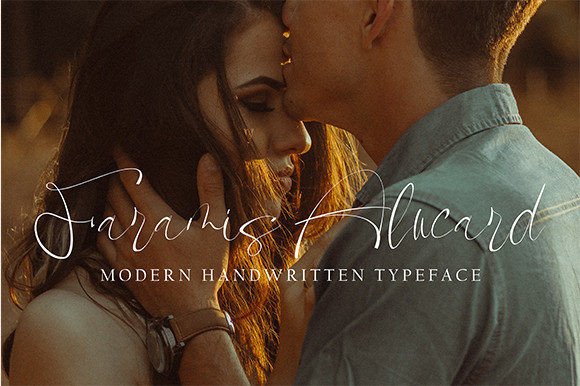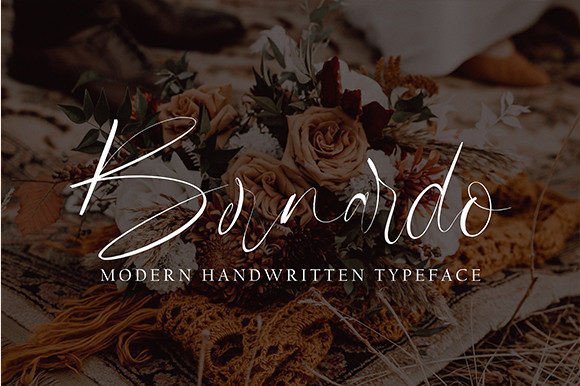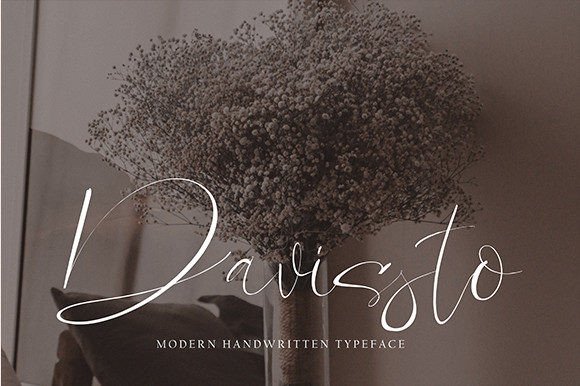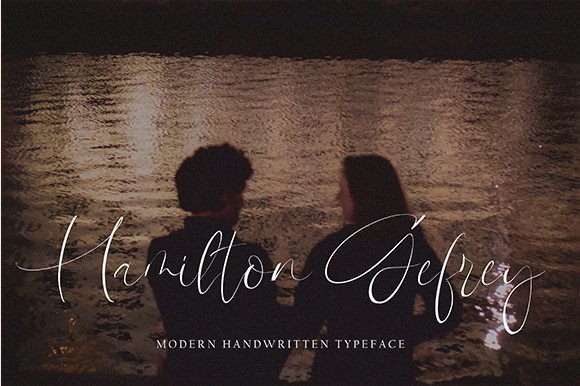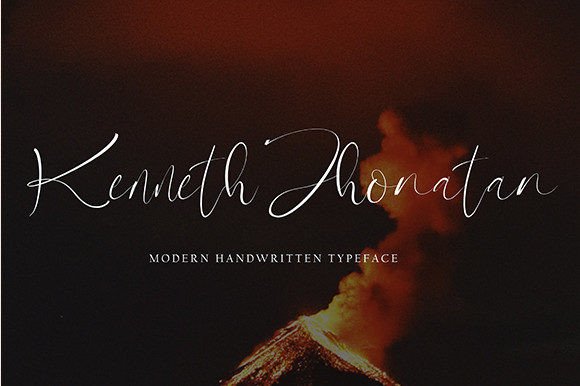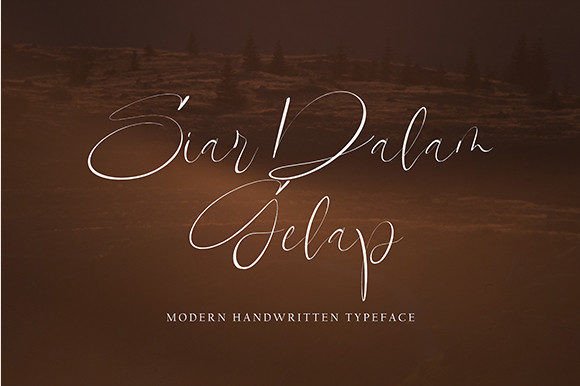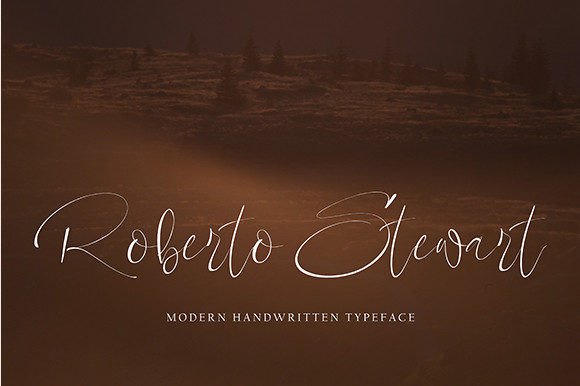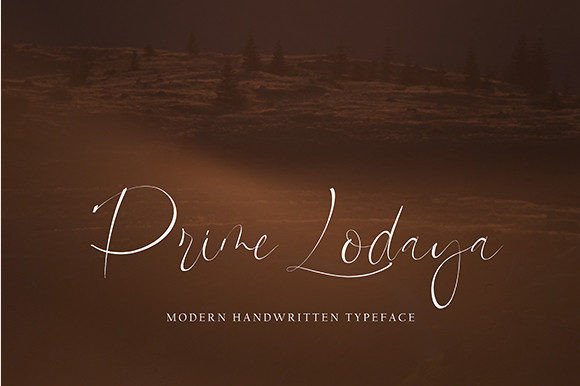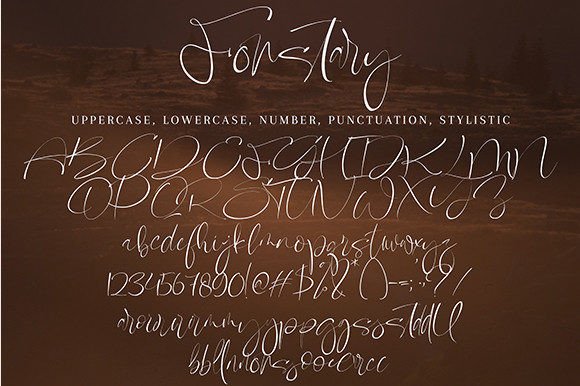
Fonstary Font
About Fonstary Font
“Fonstary” is a charming handwritten font that exudes an elegant style, making it a versatile choice for various creative projects. With its distinctive charm, this typeface is well-suited for a wide range of applications, including quotes, logos, blog headers, posters, branding, letters, invitations, stationery, and more.
The elegance of Fonstary is evident in its carefully crafted letterforms, adding a touch of sophistication to your text. Whether you’re working on digital graphics or print materials, Fonstary is designed to bring a charming and refined quality to your designs.
Imagine using Fonstary for inspiring quotes, where its elegant style enhances the impact of meaningful words. Picture it in logos and branding, adding a touch of sophistication to a brand’s visual identity. Whether applied to blog headers, posters, or stationery, Fonstary is crafted to be a font that elevates the overall aesthetics of your projects.
In summary, Fonstary is more than just a font; it’s a charming and elegant typeface that serves as a creative tool for a multitude of projects. Let it be the choice that adds a touch of sophistication and charm to your designs, making them stand out with a timeless and refined appeal.